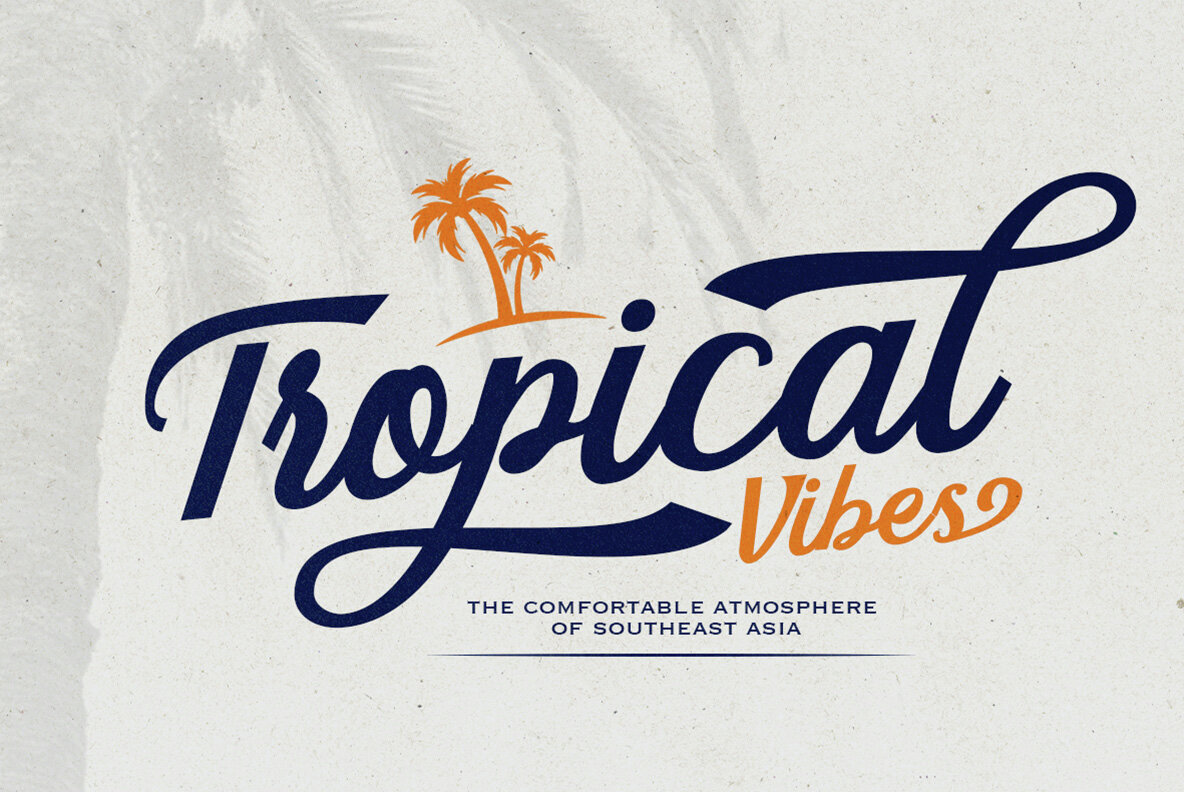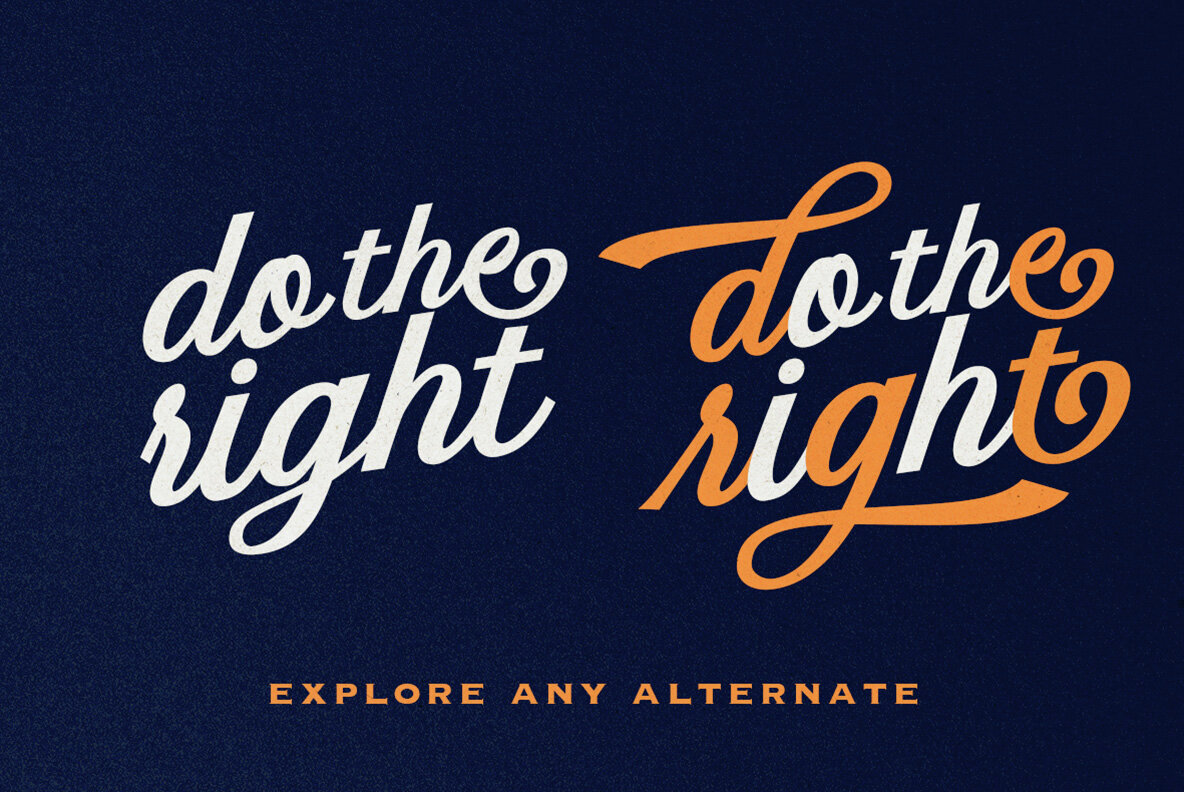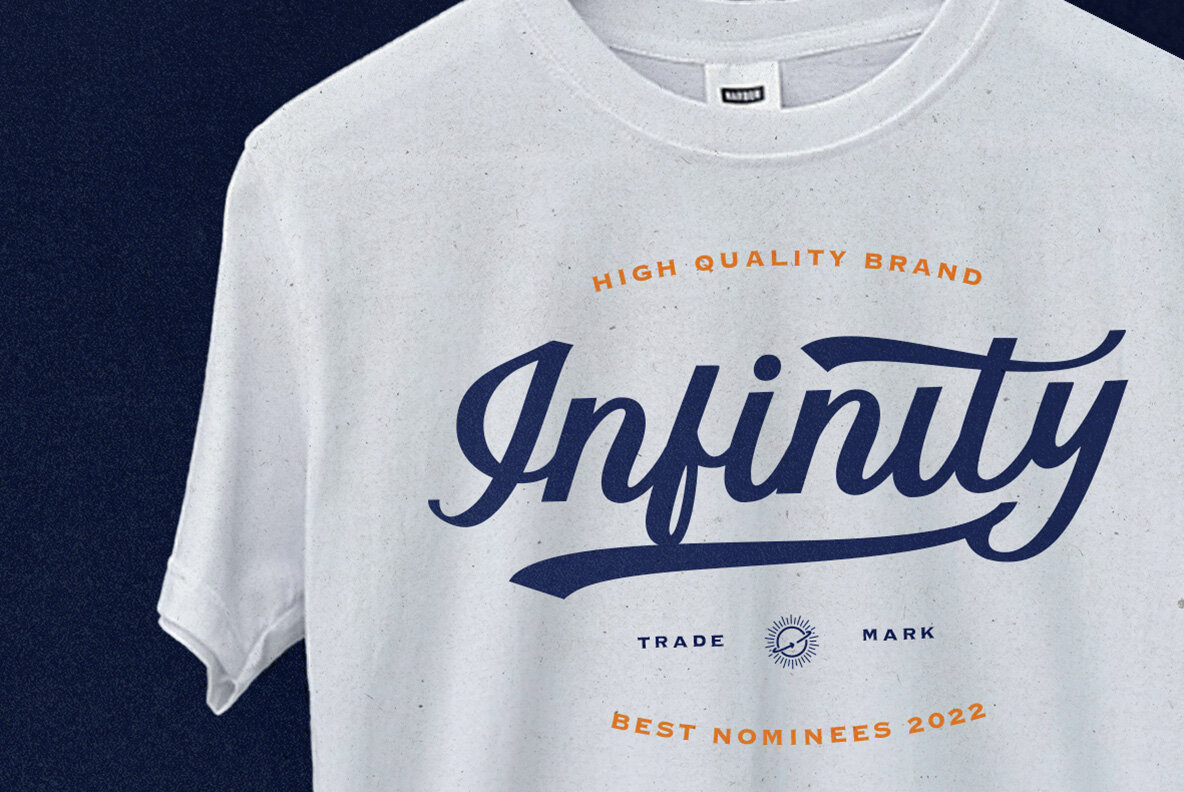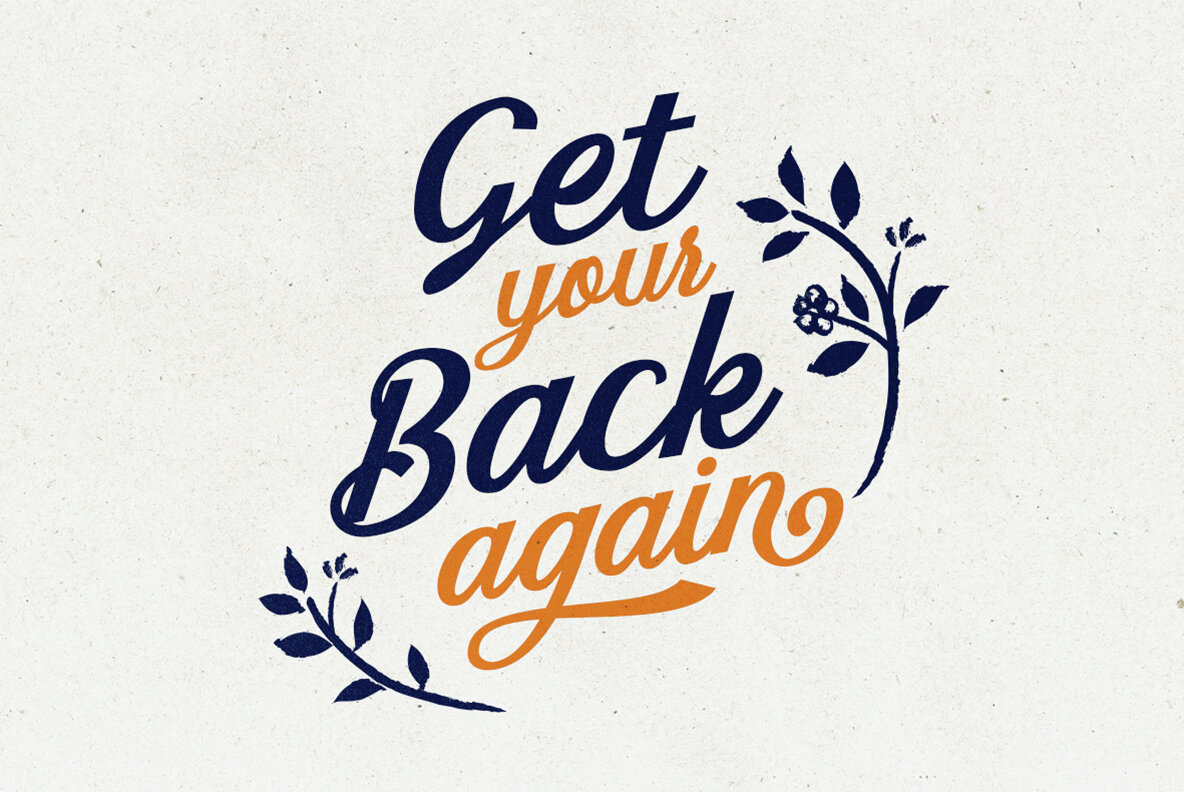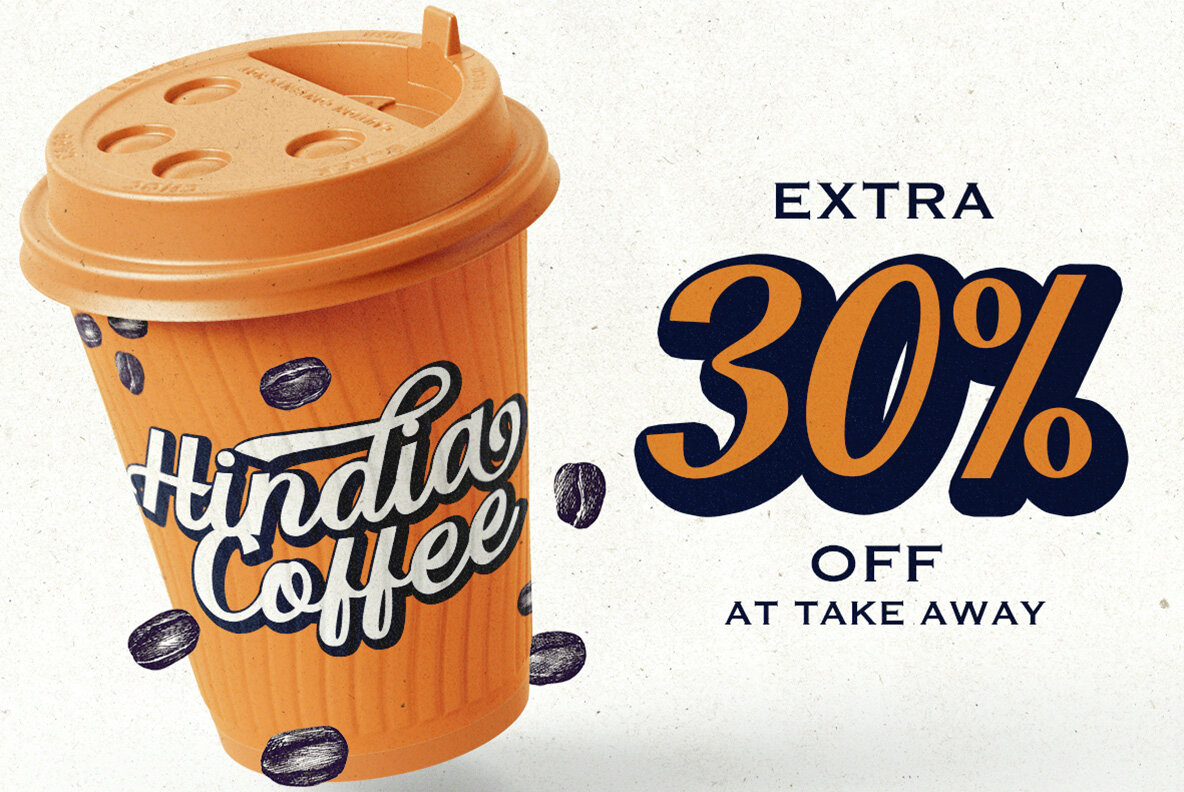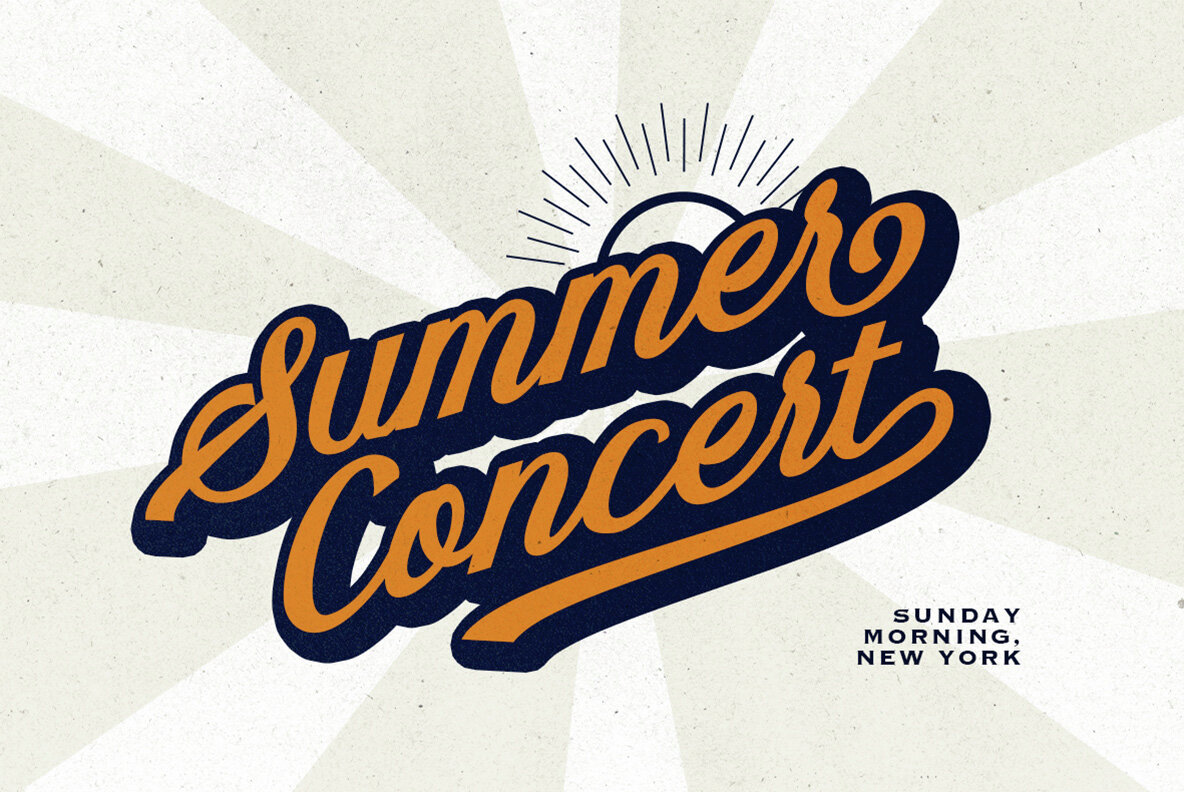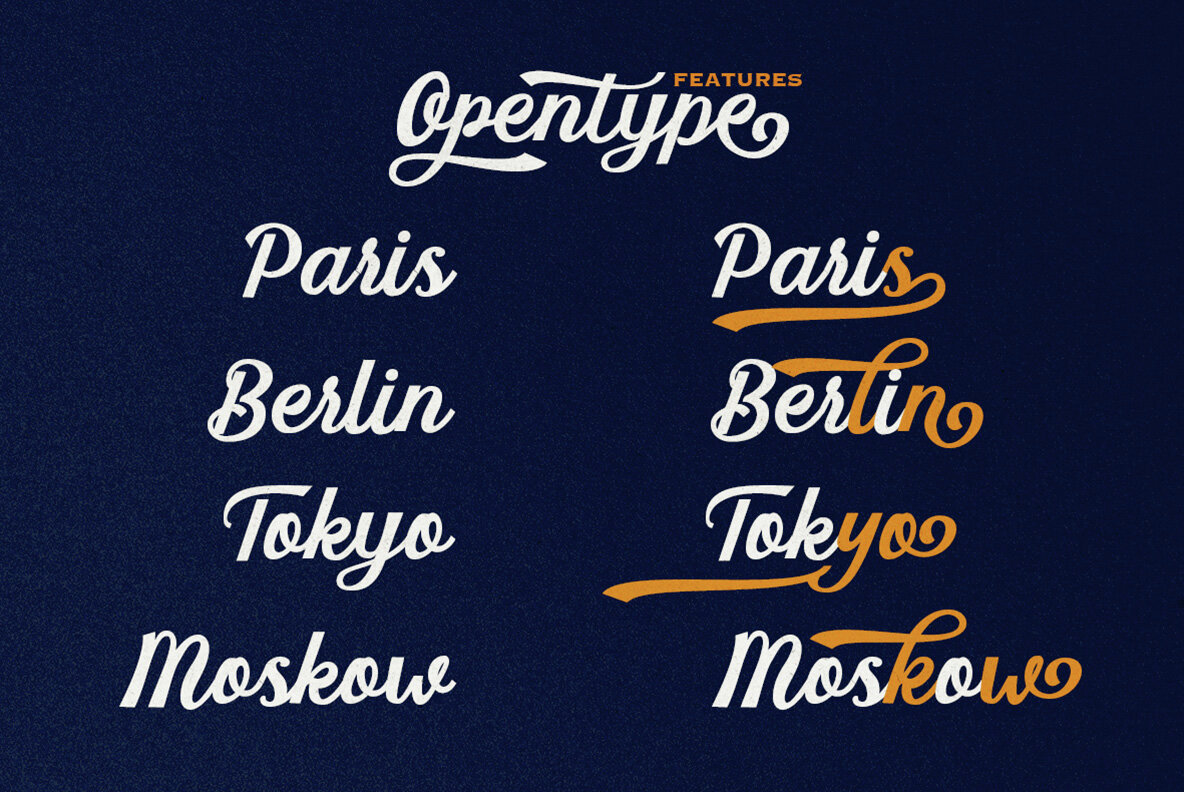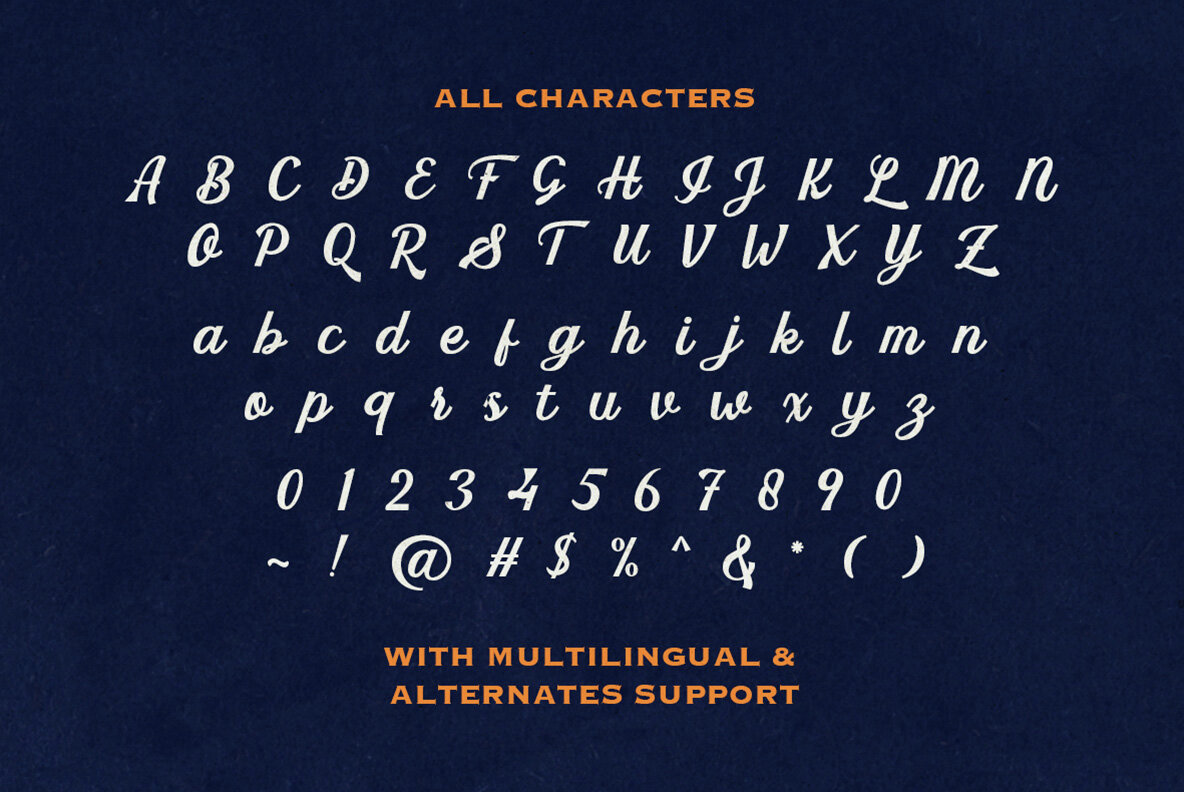
Starlake Font
Starlake Regular
Starlake is a retro script with bunch of alternates that will make your project looks more stylish and stunning. With ending swash that will support the retro vibes. You can use this font for any designs such as logo, branding, apparel, and merchandise. This font also support multilingual!